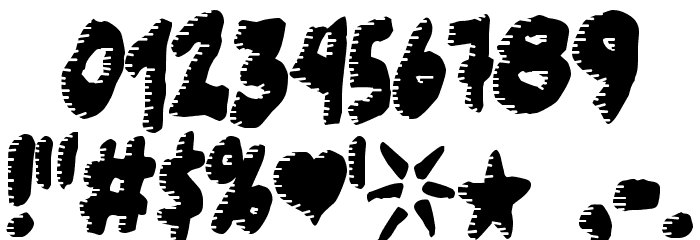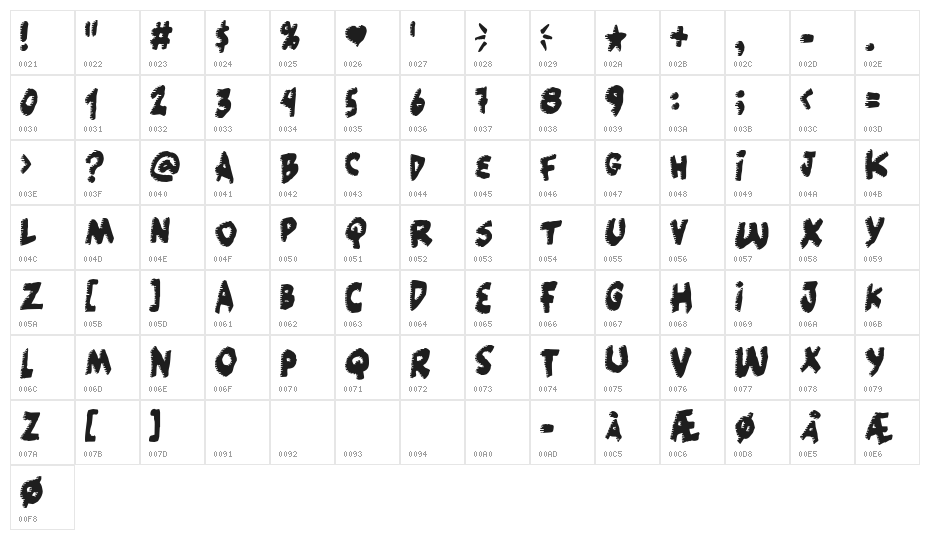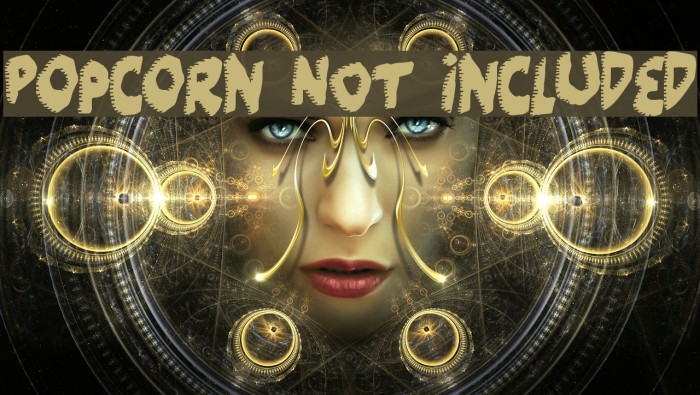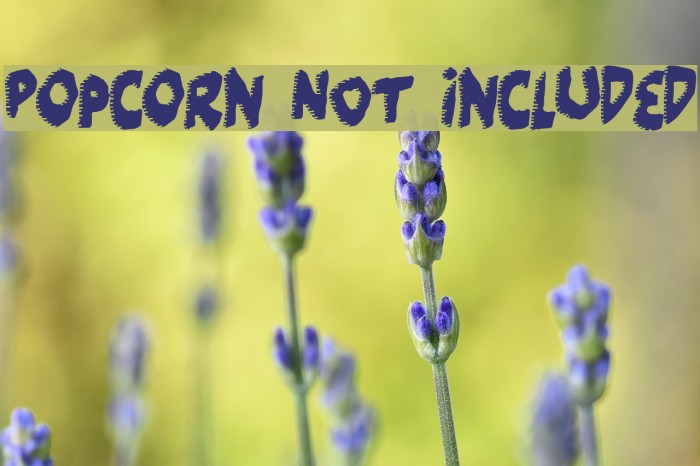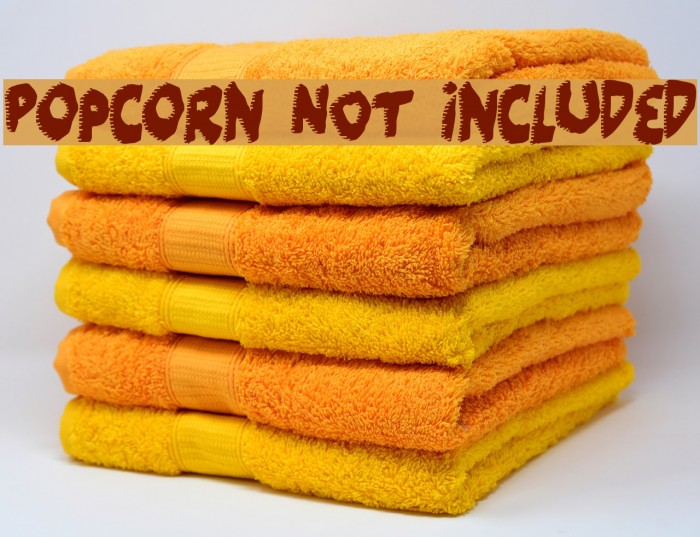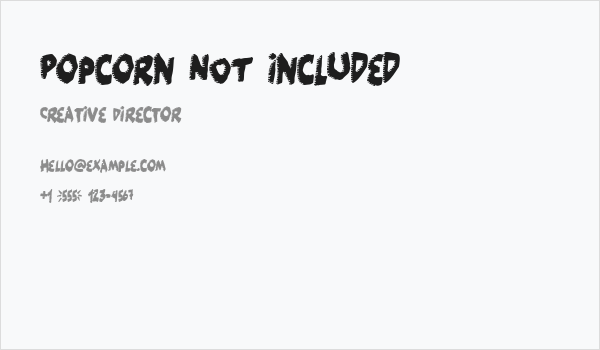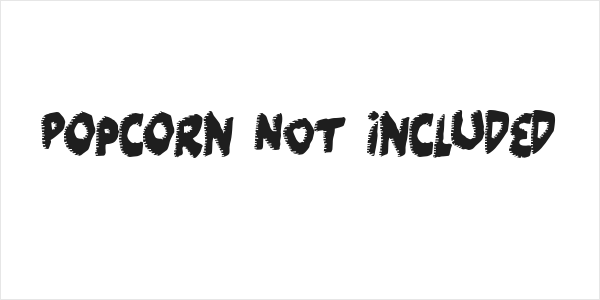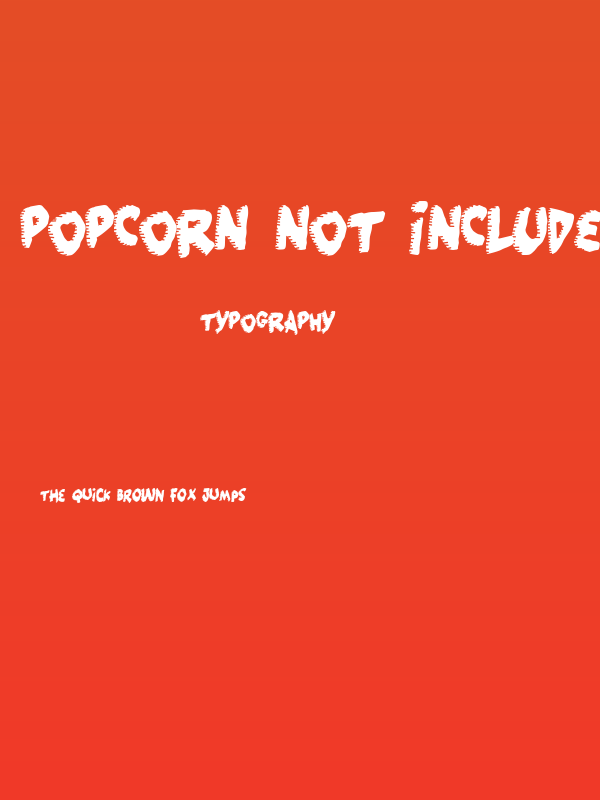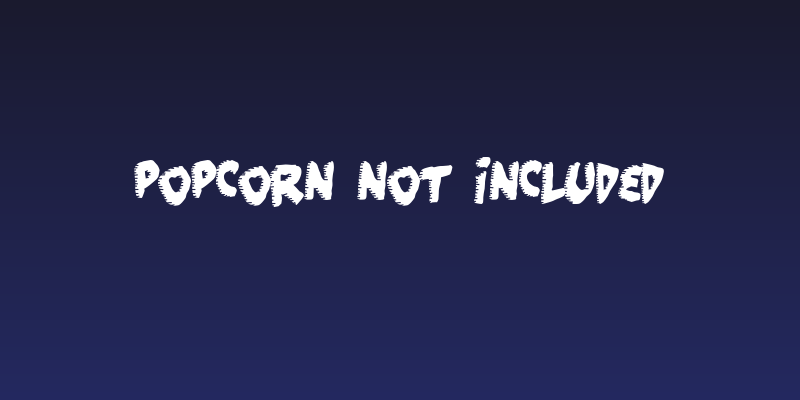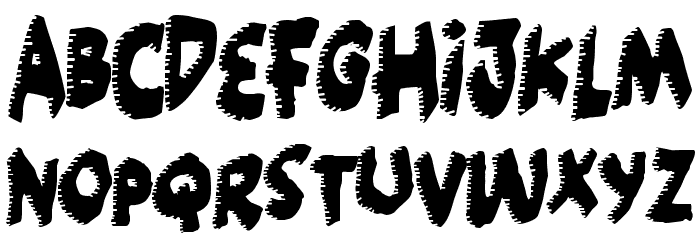
Popcorn NOT included Font
Popcorn NOT included Description
This font features a playful and bold design, characterized by its jagged, irregular edges and a hand-drawn aesthetic. The letters are thick and substantial, with a dynamic and energetic feel that suggests movement and spontaneity. The uppercase and lowercase letters maintain a consistent style, with exaggerated curves and angles that give the font a unique personality. The numbers and special characters are equally bold, ensuring a cohesive look across all text elements. This font is ideal for projects that require a fun and informal touch, such as children's books, posters, or event flyers.
| Overall Style | Playful, Energetic, Hand-drawn |
| Use Case | Headlines, Posters, Creative Branding |
| Proposed Projects | Ideal for children's books, playful posters, event flyers, and creative branding. |